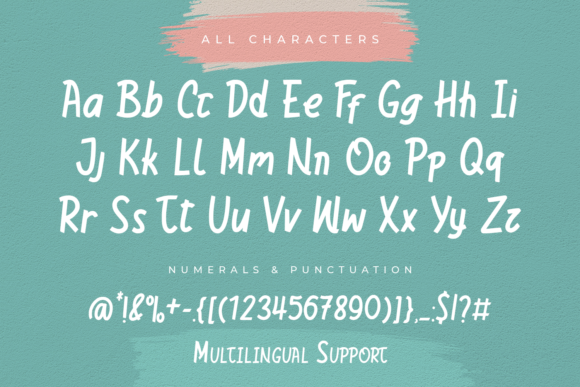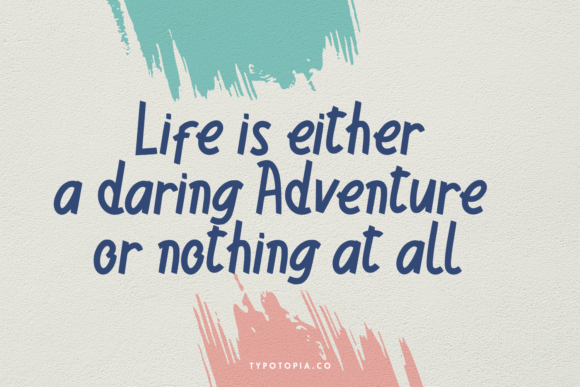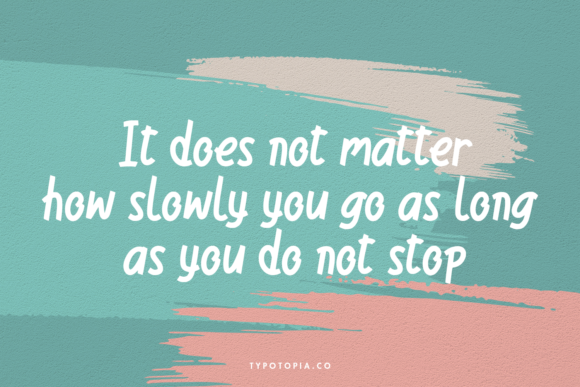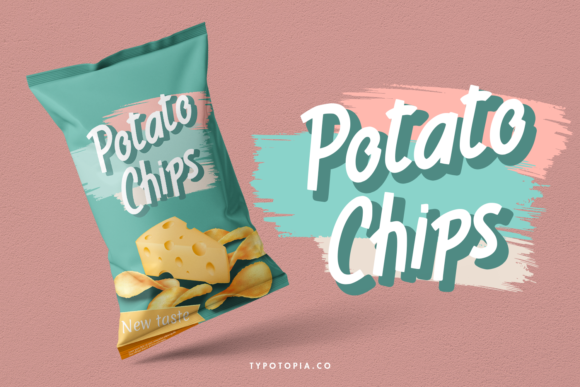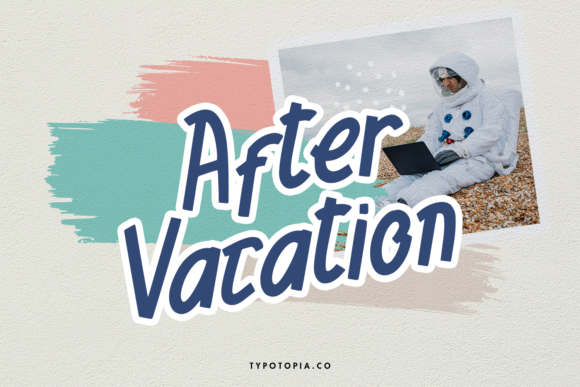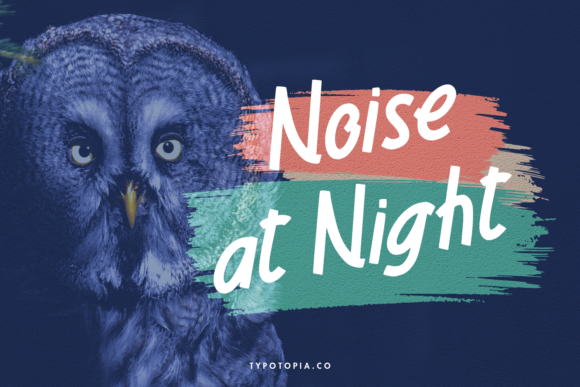
Introducing De Solidia Font: Elevate Your Designs with a Simple yet Stunning Display Font
In the world of typography, a font can make or break a design. It’s the foundation upon which creativity is built, and the right choice can elevate a project from ordinary to extraordinary. For designers and crafters looking for a font that combines simplicity with a dash of flair, De Solidia Font is an excellent choice. This dazzling display font is designed to turn any creative idea into a standout, making it perfect for a wide range of projects.
What is De Solidia Font?
De Solidia is a simple and neat display font that packs a punch. Its clean lines and uncomplicated design make it incredibly versatile, suitable for various applications, from branding and advertising to packaging and digital media. Despite its simplicity, De Solidia Font has a unique charm that sets it apart from more elaborate fonts, making it an excellent choice for designers who want to convey a message without clutter.
Key Features of De Solidia Font
- Simplicity: De Solidia’s straightforward design ensures that your message is delivered clearly and effectively, without any distractions.
- Versatility: Its neat and clean appearance makes it suitable for a wide range of projects, from elegant logos to eye-catching posters.
- Legibility: Even at smaller sizes, De Solidia maintains its readability, making it perfect for use in various contexts.
- Aesthetic Appeal: The font’s simple yet stylish design adds a touch of sophistication to any project.
Why Choose De Solidia Font?
Choosing De Solidia Font for your projects comes with several benefits:
- Uniqueness: While simple, De Solidia has a distinct look that can help your designs stand out in a crowded field.
- Easy to Pair: Its neutral design makes it easy to pair with other fonts, offering endless possibilities for creative combinations.
- Time-Saving: With De Solidia, you can achieve professional-looking results quickly, without the need for extensive design adjustments.
How to Use De Solidia Font Effectively
To make the most of De Solidia Font, consider the following tips:
- Headings and Titles: Use De Solidia for headings and titles to grab attention and add a professional touch.
- Branding: Incorporate De Solidia into your brand’s typography for a clean, modern look.
- Digital Media: De Solidia works well in digital media, including website headers, social media graphics, and email newsletters.
- Print Materials: Its clarity and readability make it an excellent choice for print materials like brochures, flyers, and business cards.
| Font Name | De Solidia Font |
| Author | typotopia |
De Solidia Font is a powerful tool for designers and crafters looking to elevate their projects with a simple yet stunning display font. Its combination of simplicity, versatility, and aesthetic appeal makes it an excellent addition to any design toolkit. Whether you’re working on a branding project, creating digital content, or designing print materials, De Solidia is sure to turn your creative ideas into standouts. With its ease of use and wide range of applications, De Solidia Font is a choice you won’t regret.